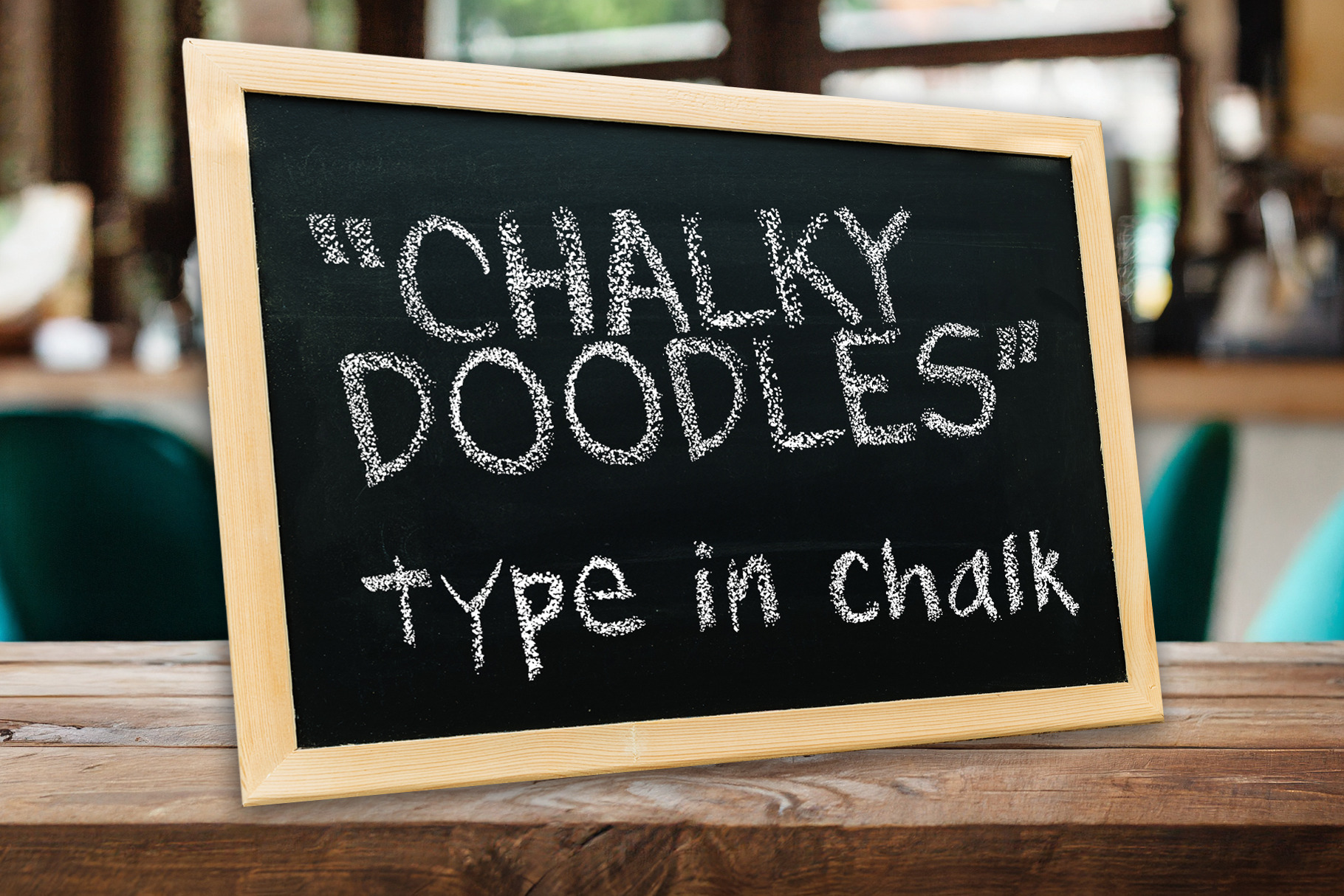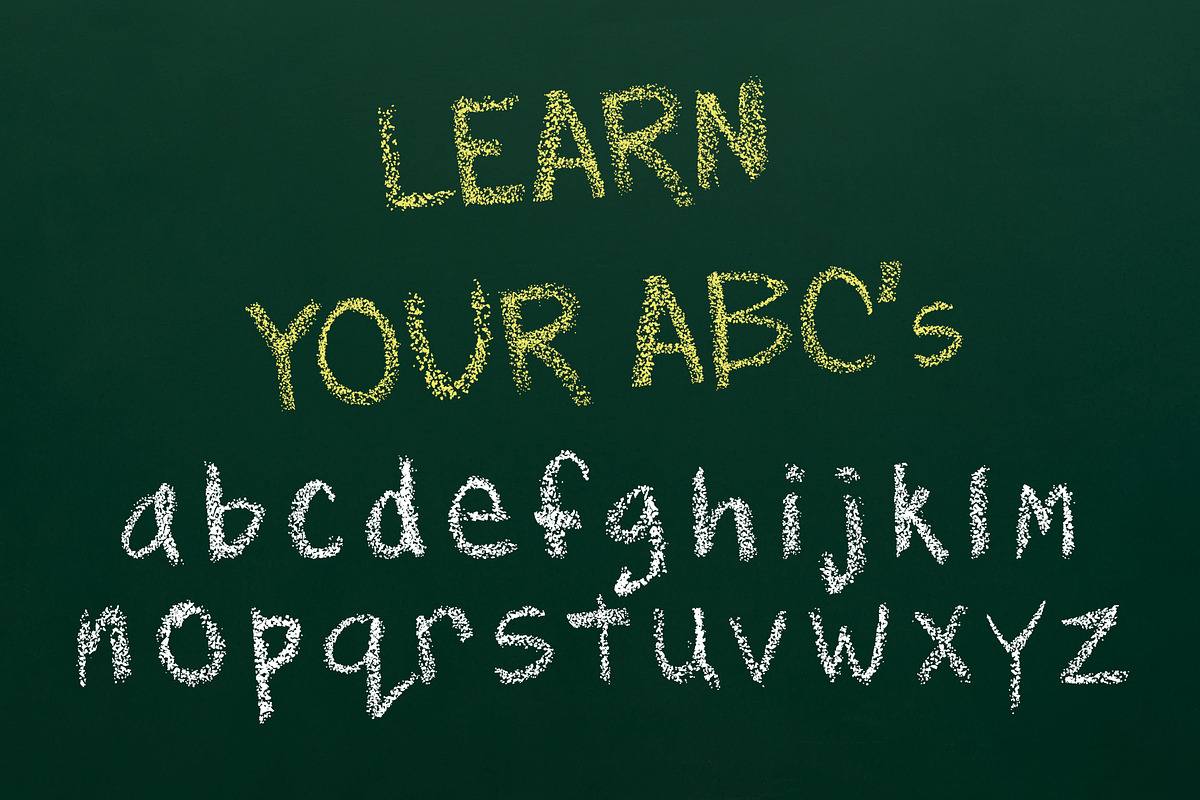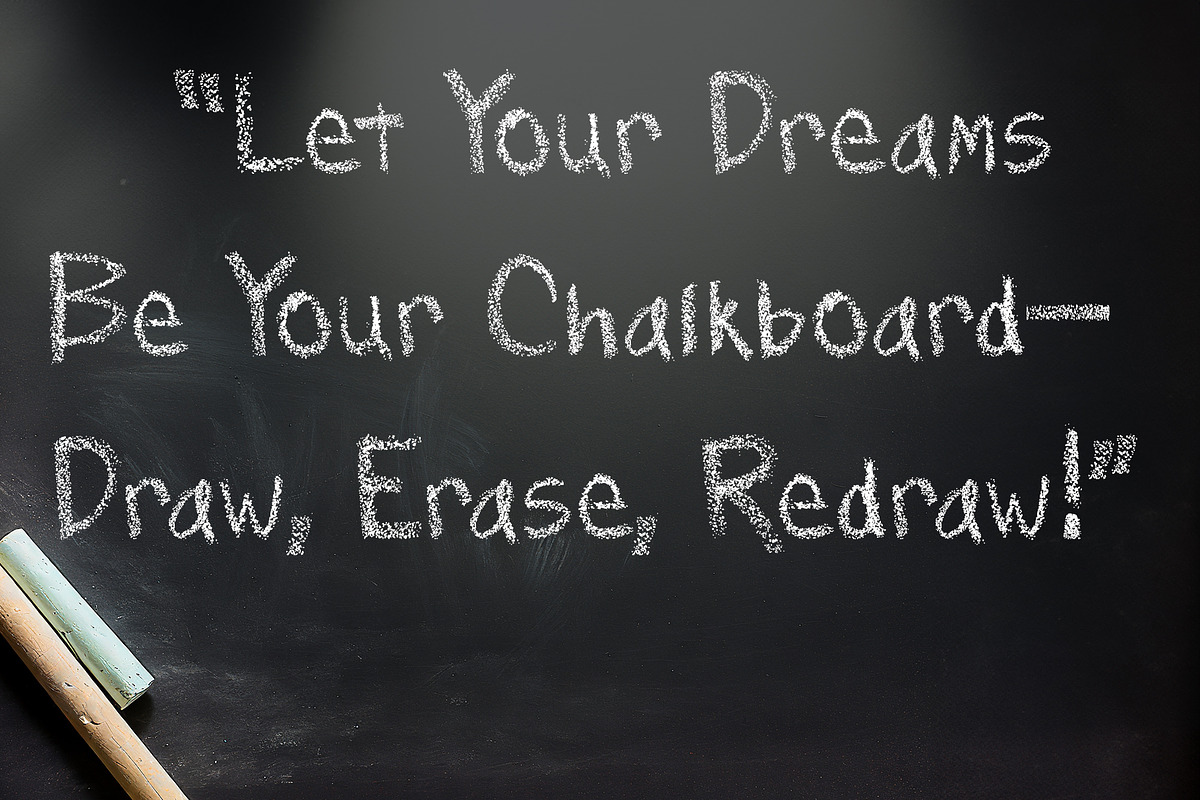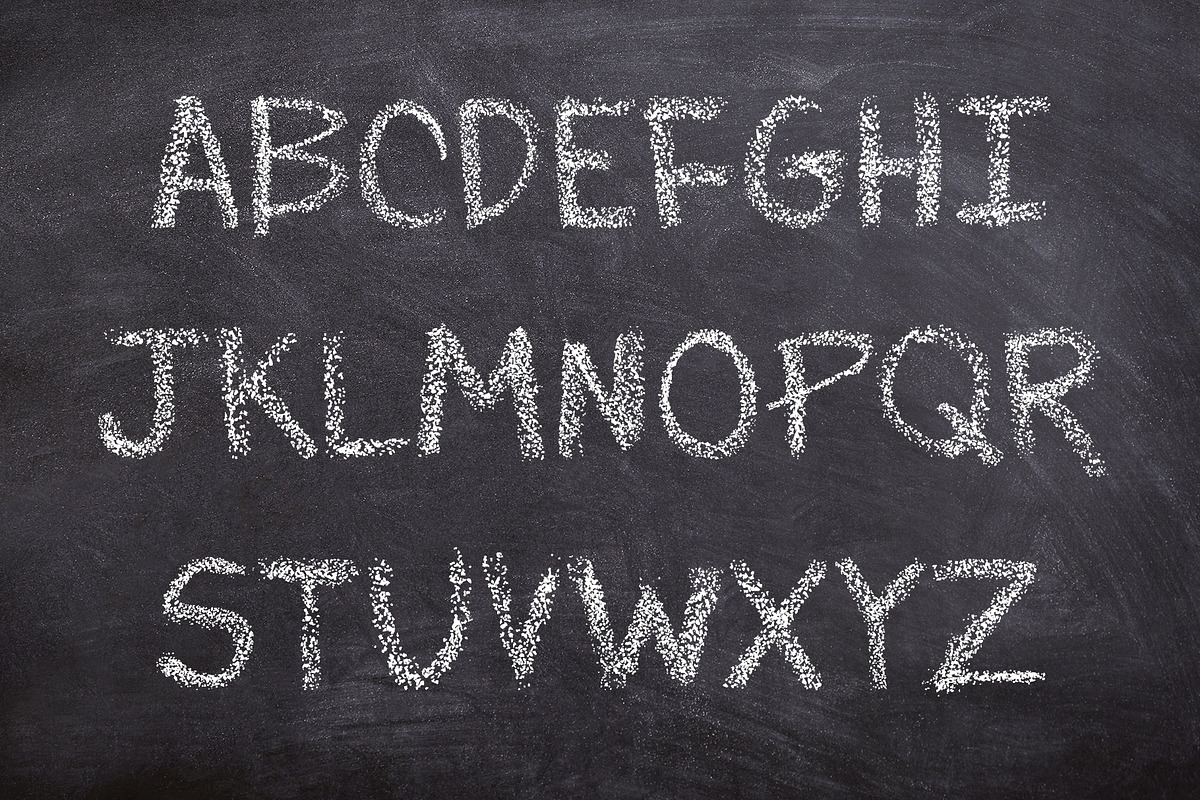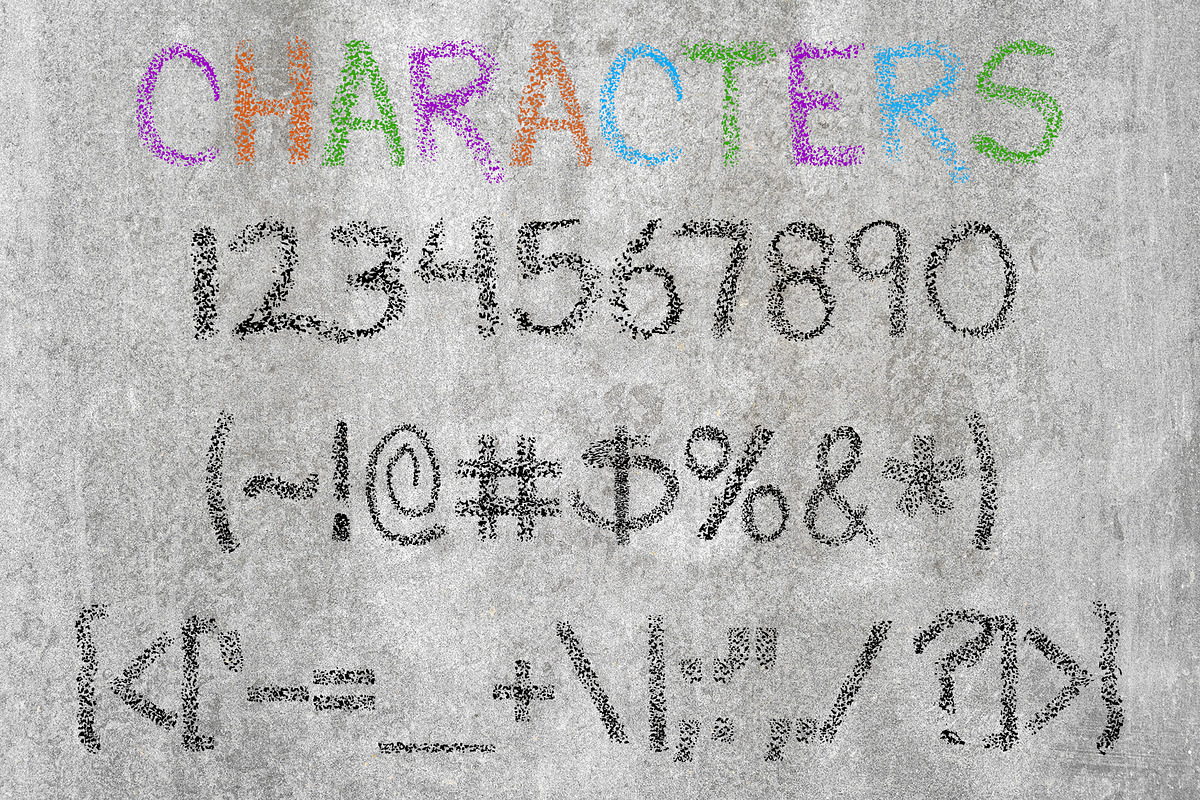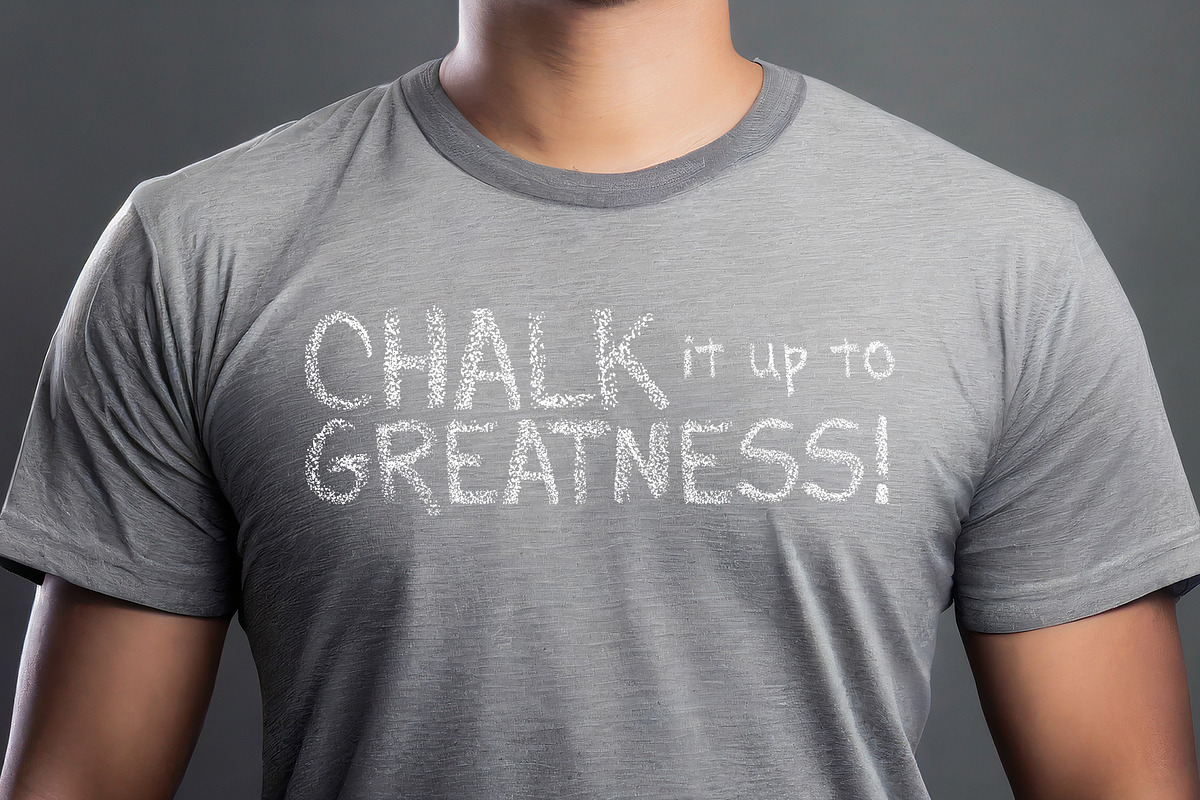
Chalky Doodles Font
Chalky Doodles is a playful and creative chalk font that captures the essence of hand-drawn chalkboard lettering. Perfectly imperfect, this font brings a touch of whimsy and a dash of nostalgia to any project.
Chalky Doodles features a full set of:
- Uppercase letters
- Lowercase letters
- Basic punctuation
Use Cases:
- Educational Materials: Ideal for classroom settings, educational resources, and learning materials.
- Event Signage: Perfect for creating eye-catching signs for weddings, parties, and other events.
- Restaurant Menus: Adds a personal, handcrafted touch to menu boards and café signage.
- Marketing Materials: Suitable for flyers, posters, and advertisements that need a playful, approachable feel.
- Graphic Design Projects: An excellent choice for designers looking to add a casual, artistic flair to their work. Why Choose Chalky Doodles?
- Versatile:Suitable for a wide range of applications.
- Unique Style: Brings a charming, handcrafted feel to your designs.